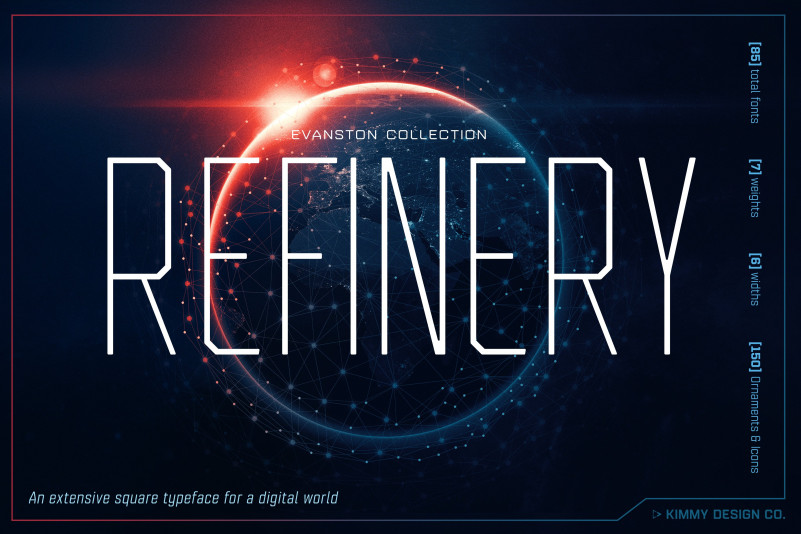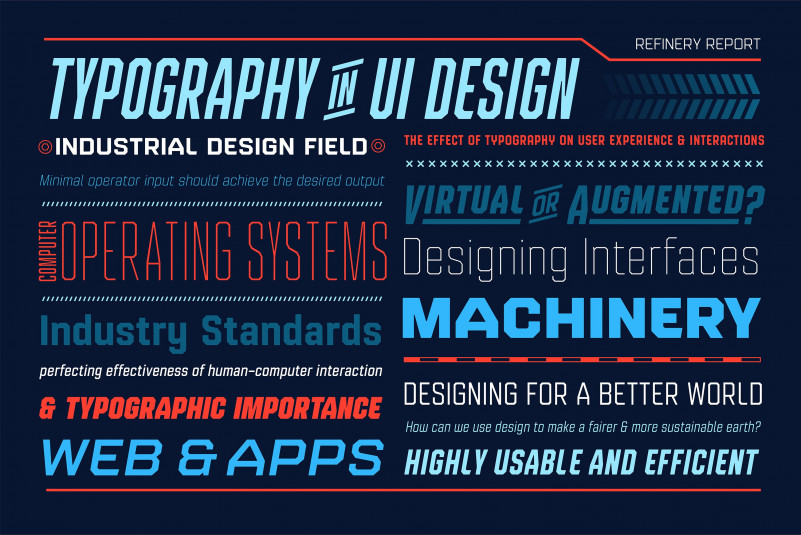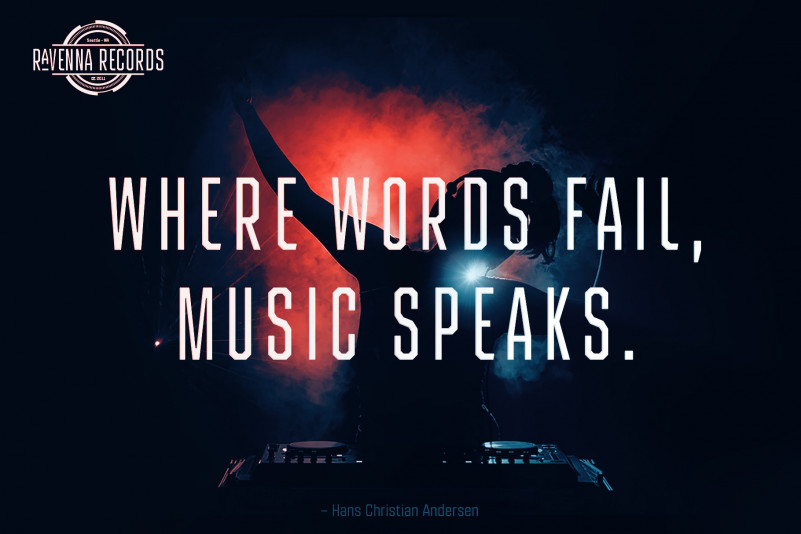
Refinery Font Family
Refinery is the newest font in the Evanston Collection of square typefaces. With a similar capital structure to Tavern and Alehouse, Refinery includes both lowercase and small caps, making it an ideal typeface for paragraph text settings. It also comes in a wide array of weights and widths, with 85 font files in total.
DESIGN Refinery has it’s roots in early 20th century signage and saloon typography, but has been modernized – even future-ized – to fit the 21st century digital landscape. The design was aimed at providing a type family that could work in many modern design fields, from sports, tech and military to gaming, HUD, virtual reality and augmented reality.